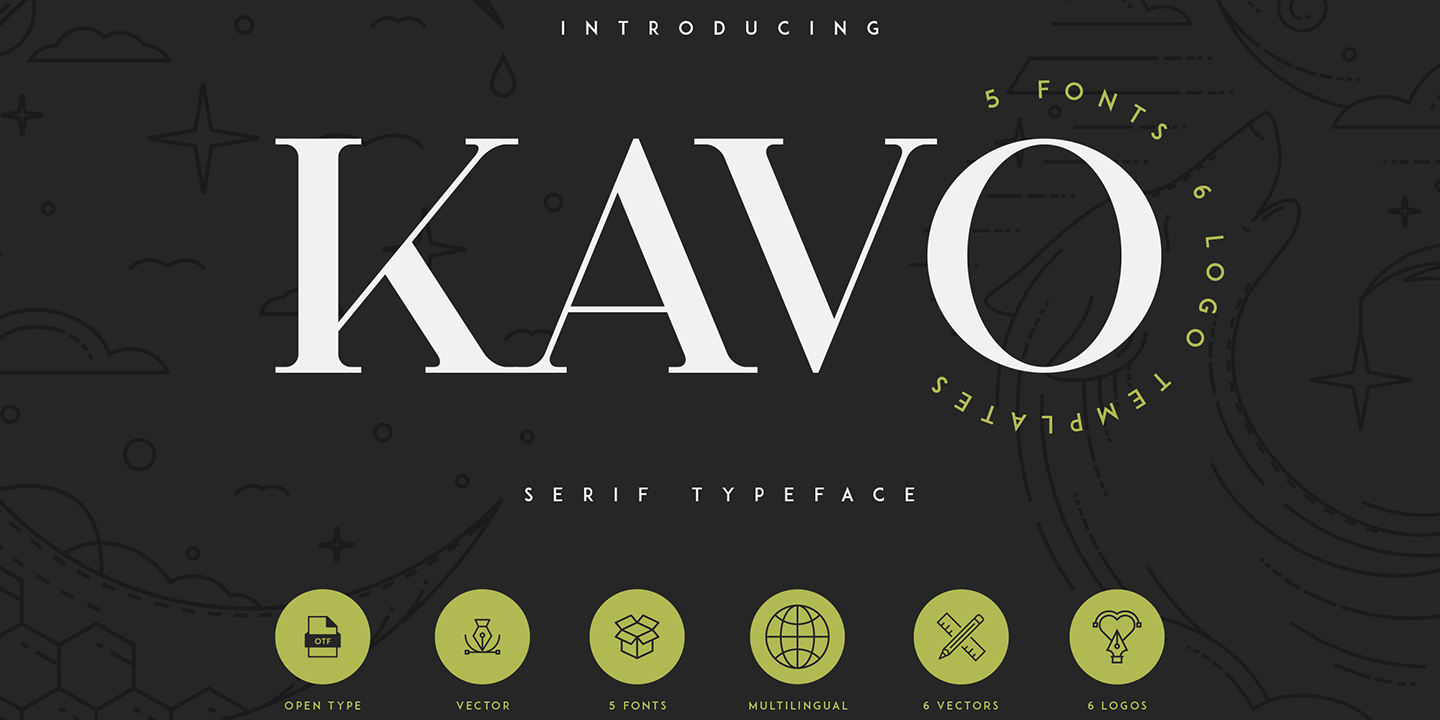
Kavo Serif Font is ideal for classic book publishing, academic journal layouts, traditional newspaper design, formal document creation, literary magazine typography, scholarly publication materials, historical society communications, traditional law firm branding, classical music programs, educational institution signage, heritage brand identities, and timeless corporate communications. This distinguished typeface excels in applications requiring scholarly elegance and traditional sophistication, making it perfect for publishers, educational institutions, traditional businesses, and organizations emphasizing intellectual credibility and classical refinement.
What makes Kavo Serif Font exciting is its masterful balance of classical tradition and contemporary readability through refined serif typography. The font features elegant letterforms with traditional serif details and scholarly proportions that evoke the authority of classic literature and academic excellence. Its carefully crafted character spacing and intellectual aesthetic create an atmosphere of scholarly wisdom and literary sophistication, while maintaining exceptional readability across all applications. The font's distinctive personality embodies the essence of intellectual tradition and academic excellence, making it perfect for brands seeking to establish credible, scholarly identities that resonate with educated audiences and literary enthusiasts.
The Kavo Serif Font family typically includes multiple weights such as Light, Regular, Medium, Bold, and Black variations, along with their corresponding italic styles. Many collections also feature traditional alternates, scholarly ligatures, and classical decorative elements that enhance the font's academic character. Some comprehensive packages include educational symbols, literary borders, and scholarly glyphs that provide complete design flexibility for academic and traditional projects promoting intellectual excellence and classical sophistication.
Kavo Serif Font Free Download represents the perfect fusion of classical aesthetics and typographic excellence. This remarkable typeface brings instant credibility and scholarly appeal to any project, making it particularly valuable for educational brands, publishing houses, and traditional organizations seeking to establish authoritative, intellectually-focused brand identities. The font's versatile nature allows it to perform beautifully in both extensive text applications and distinguished display settings.
Designers value Kavo Serif Font for its ability to instantly convey intellectual authority, scholarly credibility, and classical sophistication that builds trust with educated audiences seeking quality content and traditional excellence. The font's excellent construction ensures smooth performance across various media and applications, while its scholarly appeal adds immediate academic authenticity to any design project. The comprehensive character set includes extended Latin characters, traditional ligatures, numerals, punctuation marks, and special symbols, making it suitable for academic communications, literary publications, and diverse scholarly applications.
This exceptional typeface successfully captures the essence of classical scholarship and intellectual tradition while offering modern functionality, providing designers with an authentic tool for creating memorable and impactful communications that resonate with audiences seeking scholarly excellence, literary quality, and traditional sophistication.